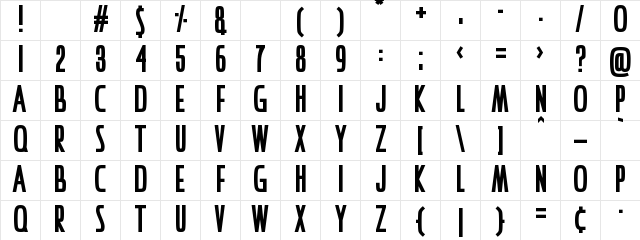
I Am Awake Regular
Design Context for I Am Awake Typeface
I Am Awake offers clean, dependable letterforms without strong stylistic allegiance, making it a practical choice for designers who need flexibility.